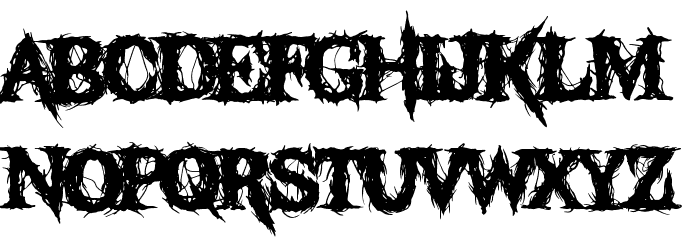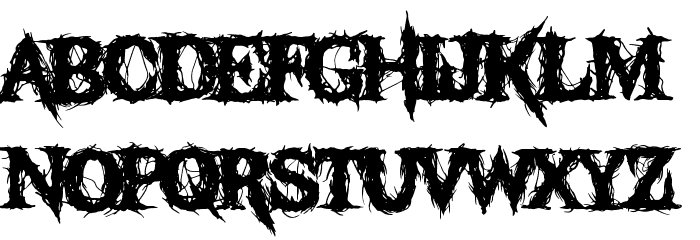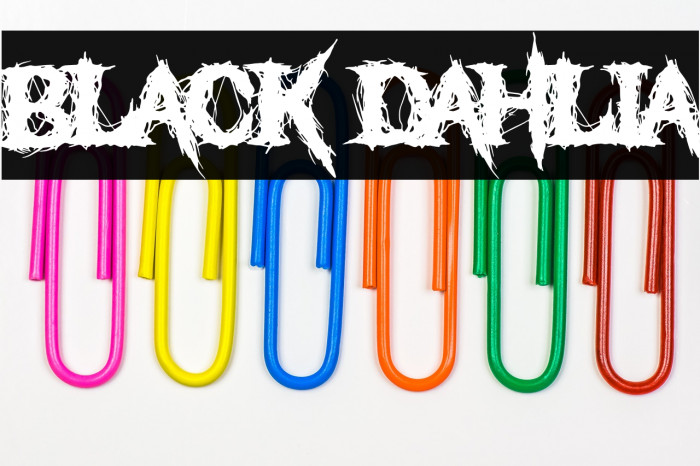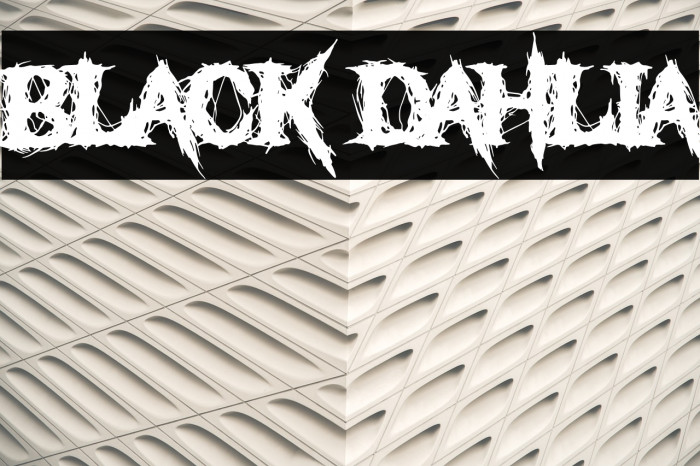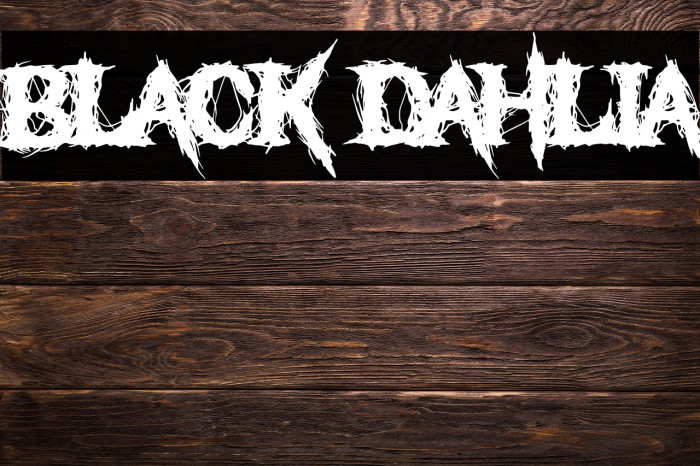
Black Dahlia Font
This font features a highly decorative and intricate design, characterized by sharp, thorn-like extensions that give it a dark and edgy appearance. The letters are bold and heavily stylized, with each character appearing as if it is entangled in a web of spikes and thorns. This creates a sense of chaos and intensity, making it ideal for projects that require a dramatic and impactful visual statement. The font maintains a consistent height across all characters, ensuring readability despite its complex design. The unique style is reminiscent of gothic or horror themes, making it suitable for use in creative and artistic contexts where a strong visual impact is desired.
A bold, thorny, and intricate decorative font with a gothic and edgy style.
- Proposed Projects: Ideal for horror-themed posters, album covers, video game titles, and any project requiring a dramatic, gothic aesthetic.
- Overall Style: Gothic, Decorative